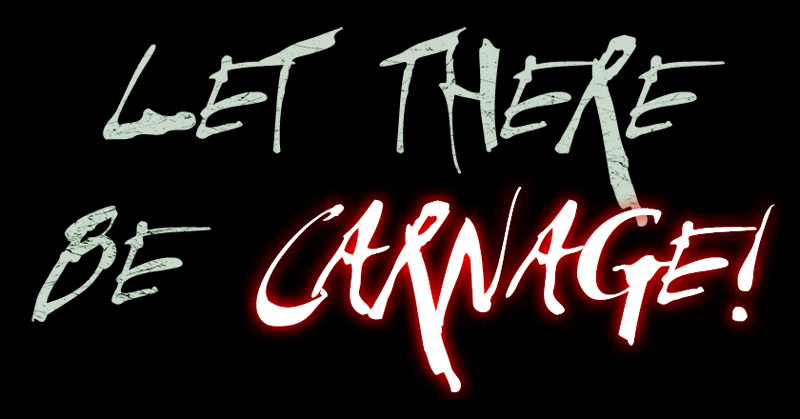
Font name: | Let Der B Carnage!!! |
Author: | Jorge Carlos �Charlie� Alvarez Nobote |
Note by Jorge Carlos �Charlie� Alvarez Nobote | |
I made this font based on the one used in the titles of �VENOM: LET THERE BE CARNAGE� movie. |